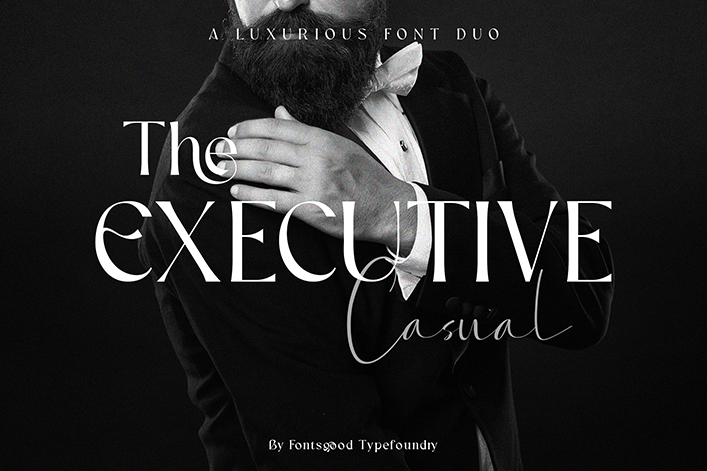
Free download The Executive Casual Font
Font name: | The Executive Casual |
Author: | Fontsgood |
Introducing "The Executive Casual". A duo font with elegant combination, a perfect blend of elegance, smoothness and casualness. designed to elevate any project with its distinguished presence. With its sleek and graceful curves, "The Executive Casual Serif" font exudes a sense of class and sophistication that captures attention and leaves a lasting impression. By installing or using this demo version you agree to use it as PERSONAL USE ONLY and requires a license for commercial use! ----------------------- The font license can be purchased at: https://creativemarket.com/Fontsgood https://www.creativefabrica.com/designer/fontsgood/ref/63265 Please read "What license do I need?" for more info: info@fontsgood.net ----------------------- |